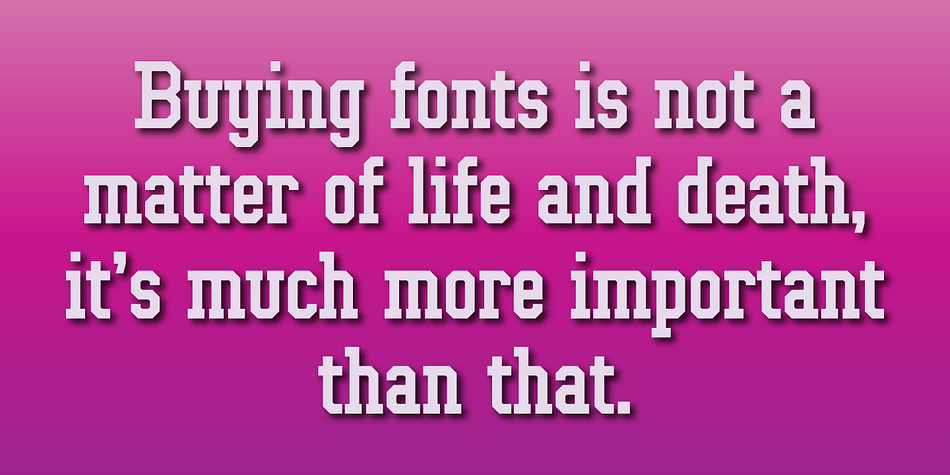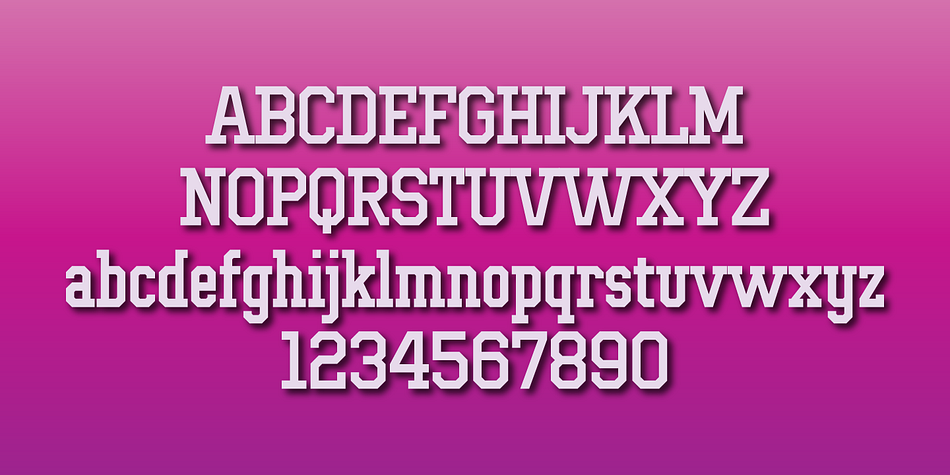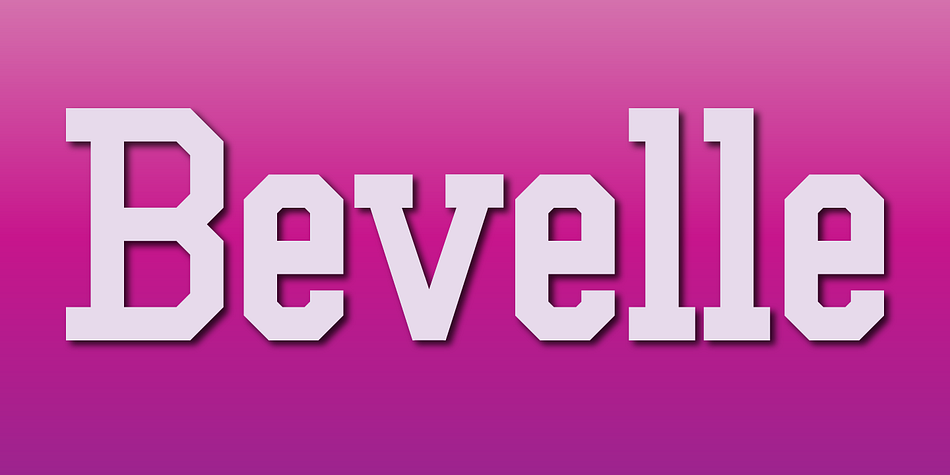
Designed by Gerald Gallo, Bevelle is a display slab and slab serif font family published by Gerald Gallo Fonts.
Bevelle is a serif font with characters that have beveled corners. It is ideal for headlines, titles, branding and small blocks of text.
Foundry | Gerald Gallo Fonts |
Styles | Display Slab, Slab Serif |
Designer | Gerald Gallo |